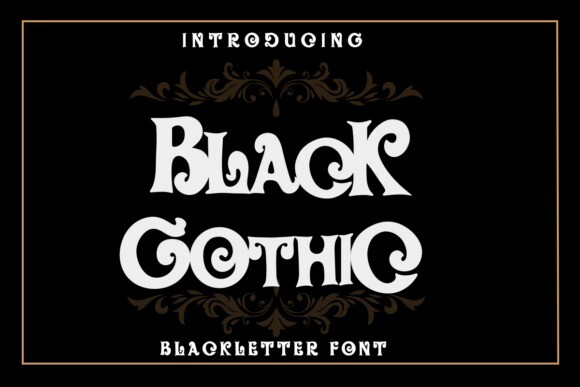
Black Gothic Font
Designer: Prosperity Art
Black Gothic Font is a Blackletter Fonts. You can use it for taking notes, writing a diary, or making greeting cards. However, you can still use it for other designs, such as banners, content, mugs, cards, shirts, stationery, social media posts, and more!